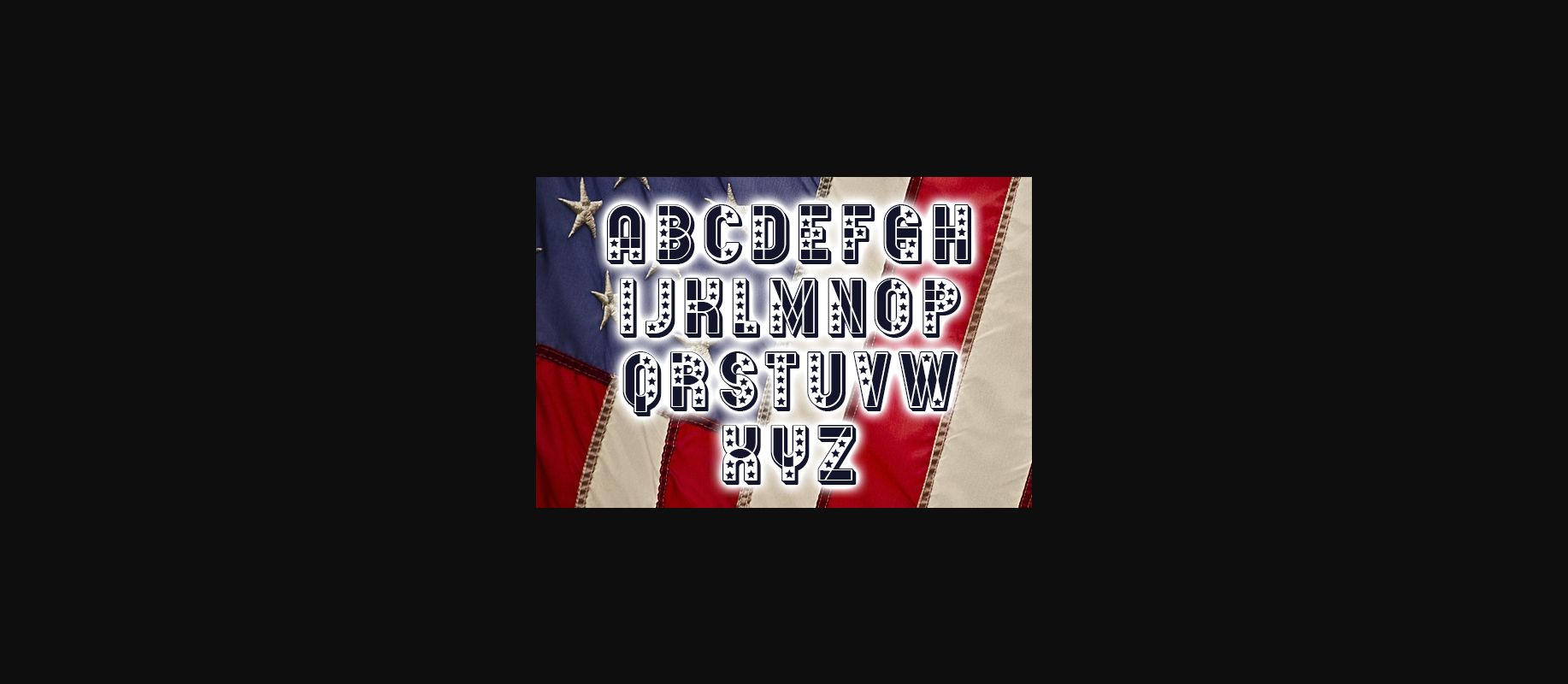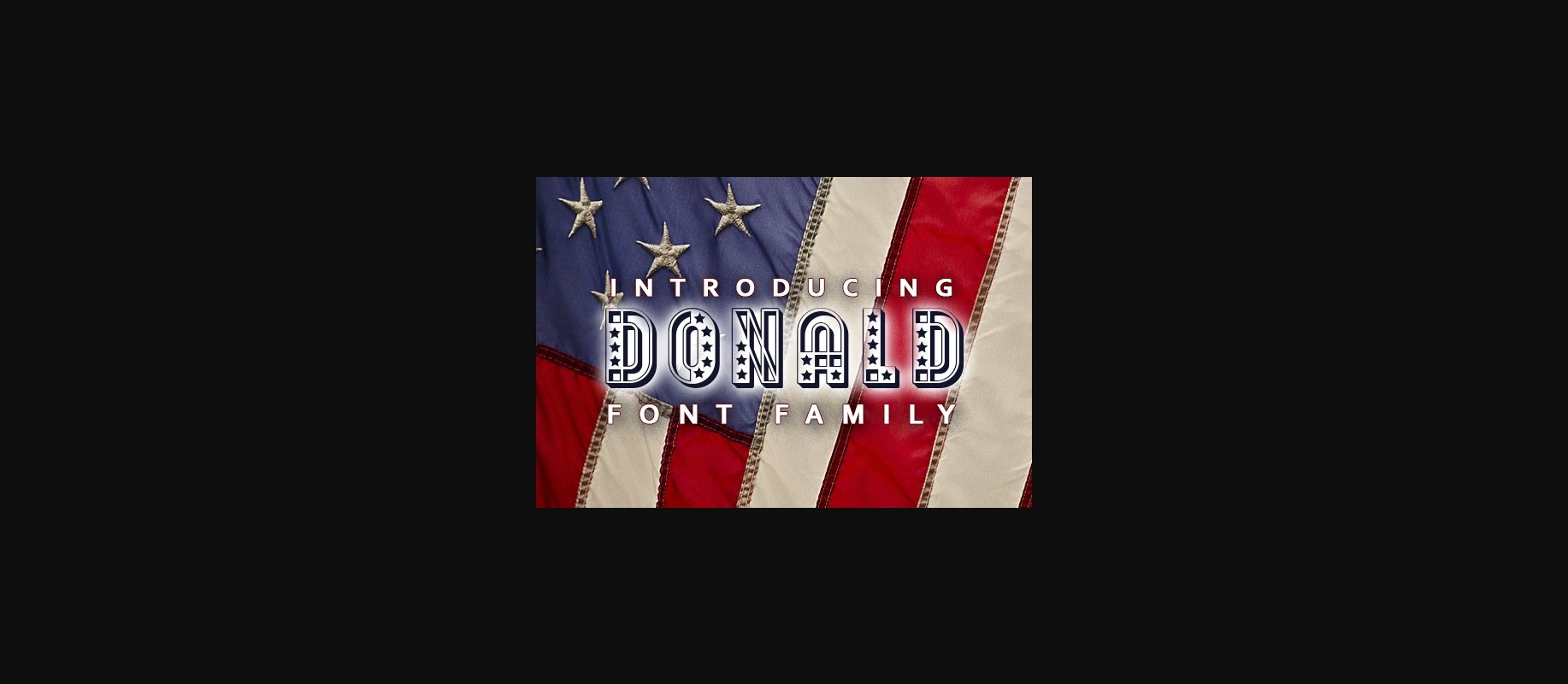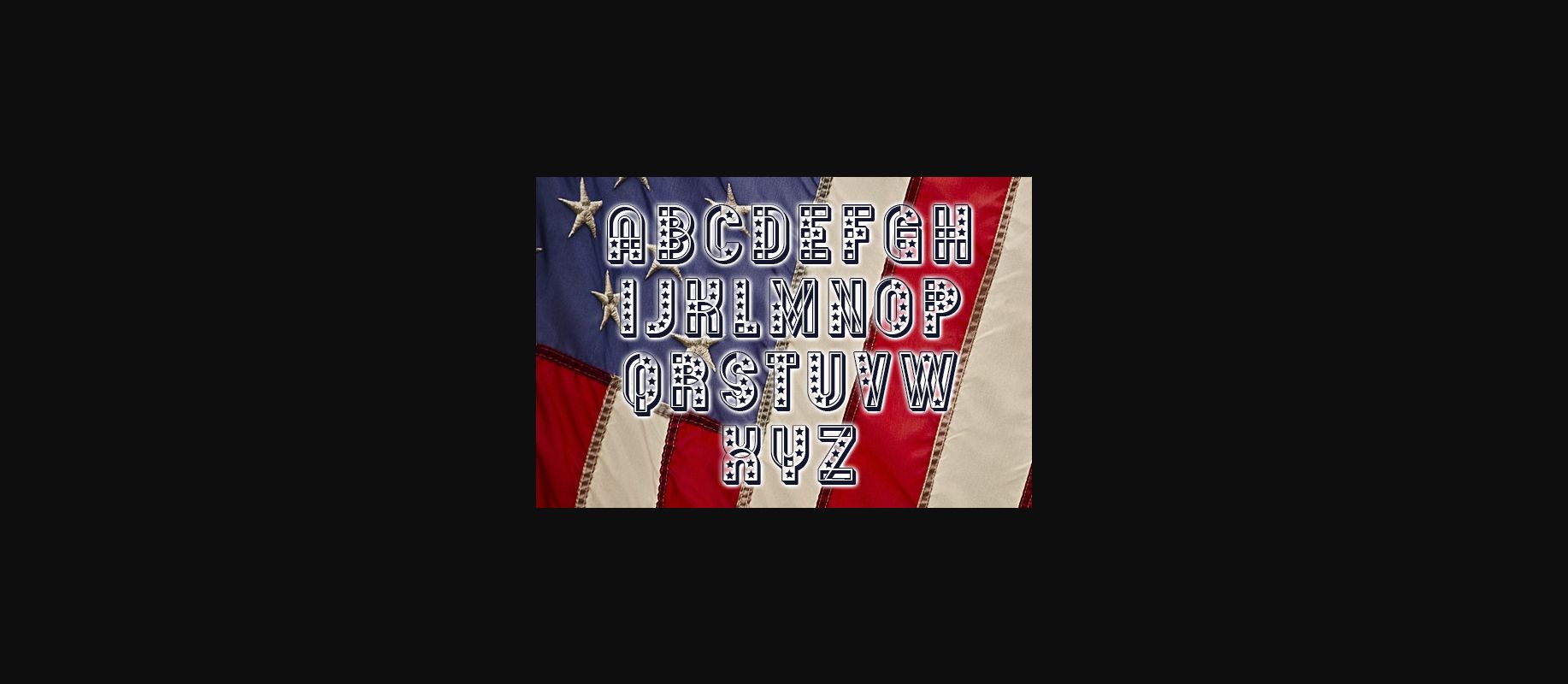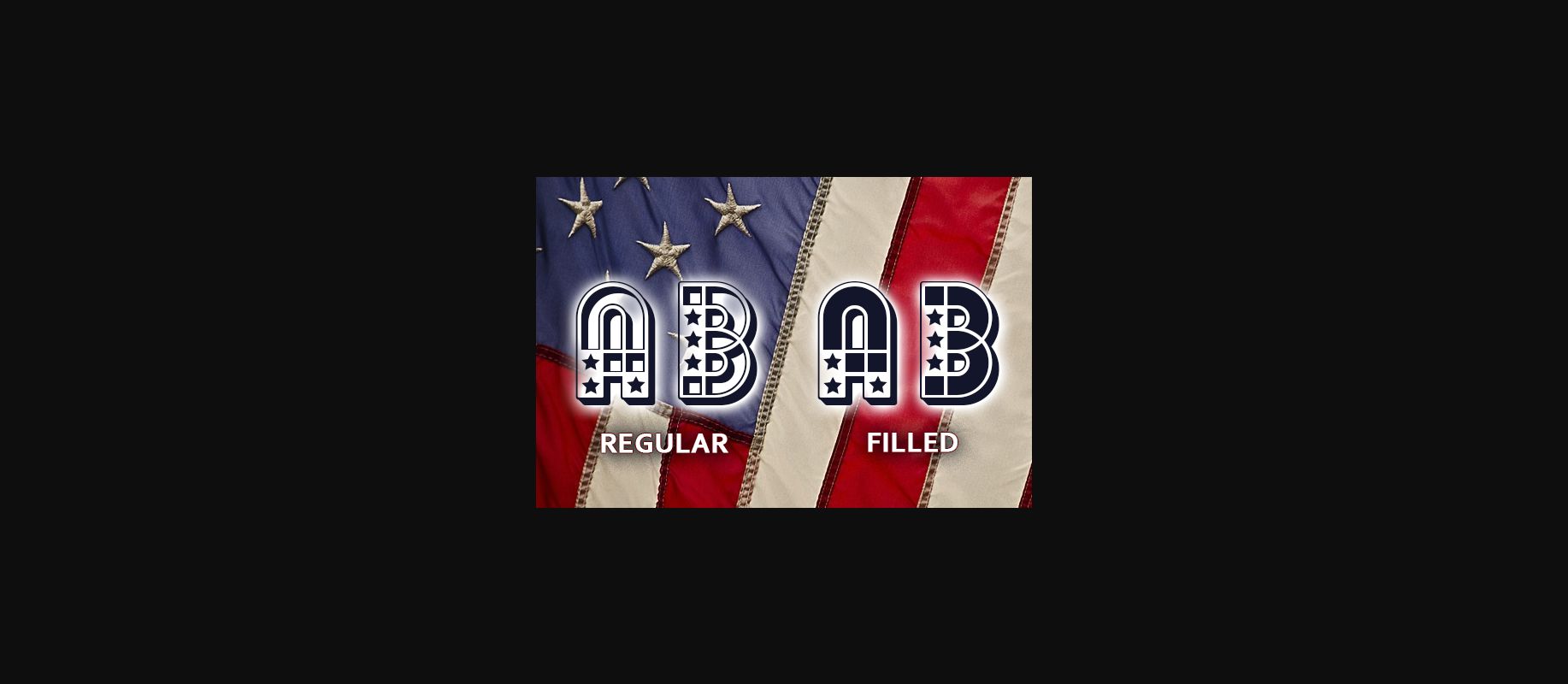
About Donald Font
Donald is an awesome 3D decorative font that will fit perfectly on each of your designs. Have fun with this beautiful font and explore its endless variations!